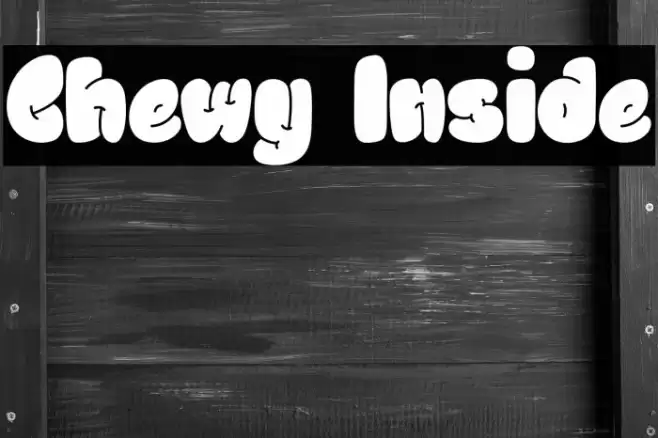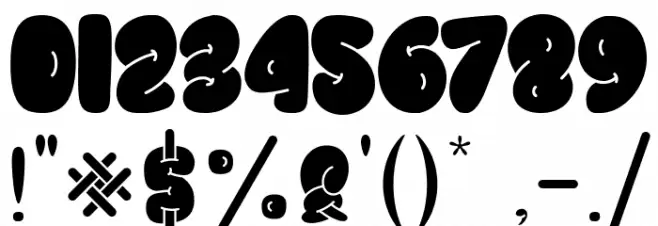
Chewy Inside Font
Chewy Inside Description
This playful and bold font features thick, rounded characters that give off a fun and friendly vibe. The letters are heavily weighted with a soft, chewy appearance, making them stand out with a unique, bubbly style. The characters are consistently wide, with minimal contrast in stroke thickness, contributing to a cohesive and harmonious look. The font includes both uppercase and lowercase letters, numerals, and a variety of special characters, all maintaining the same whimsical and approachable aesthetic. Its design is reminiscent of retro styles, yet it maintains a modern twist that makes it versatile for contemporary use.
A bold, playful font with thick, rounded characters and a whimsical, retro-modern style from Cartoon fonts.
- Proposed Projects: Ideal for children's books, playful branding, party invitations, and any project needing a fun, approachable touch.
- Width: Expanded
- Overall Style: Playful, Retro-Modern